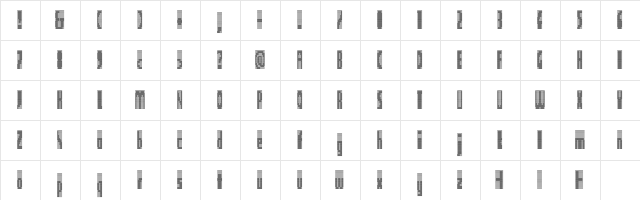
Deeter Condensed
Design Context for Deeter Typeface
Deeter is a composed and adaptable typeface that performs quietly and consistently across a wide range of design contexts. Its narrow stance lets it pack a punch even in space-constrained designs.